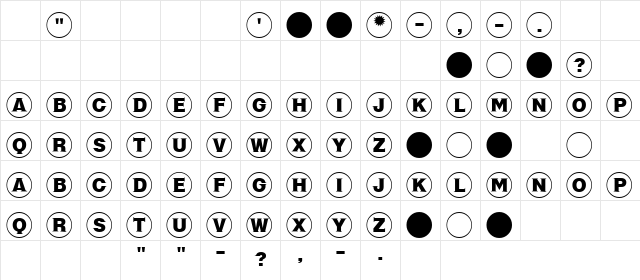
Cupcake Regular
Design Context for Cupcake Typeface
Cupcake takes a measured approach to typography — its balanced proportions and neutral character make it a reliable workhorse for both digital and print work.